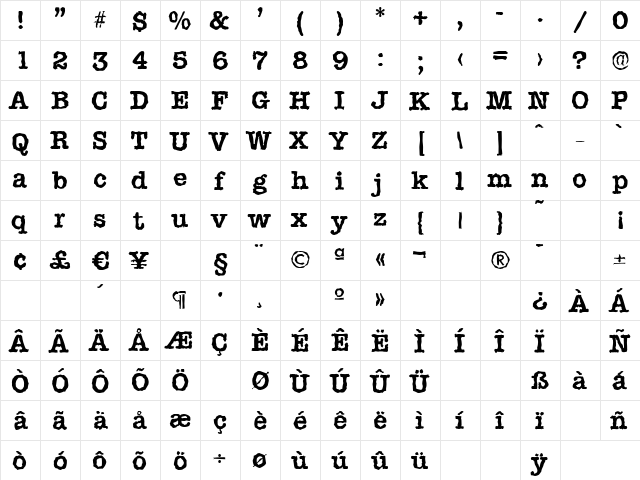
TypewriterRandom Bold Font Preview
TypewriterRandom Bold
Design Context for TypewriterRandom Typeface
TypewriterRandom brings the precise, column-aligned rhythm of monospaced typography to designs that value technical clarity and systematic order. The heavy weight commands attention and anchors typographic hierarchies.
A natural fit for code editors, technical documentation, developer-focused branding, and terminal-inspired UI.
Pro Tip: Pair TypewriterRandom with a proportional sans for UI contexts where code-style labels and regular body copy need to coexist.